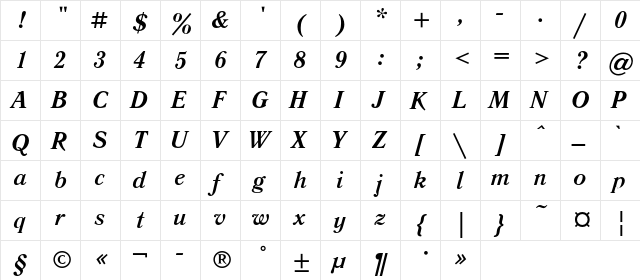
LiteraturnayaC Bold Italic Font Preview
Design Context for LiteraturnayaC Typeface
LiteraturnayaC takes a measured approach to typography — its balanced proportions and neutral character make it a reliable workhorse for both digital and print work. The dynamic lean of this cut emphasises speed and emphasis in any layout. The heavy weight commands attention and anchors typographic hierarchies.
Pro Tip: Try LiteraturnayaC for annotation and caption copy alongside an upright companion — the contrast in angle creates a dynamic but ordered typographic system.